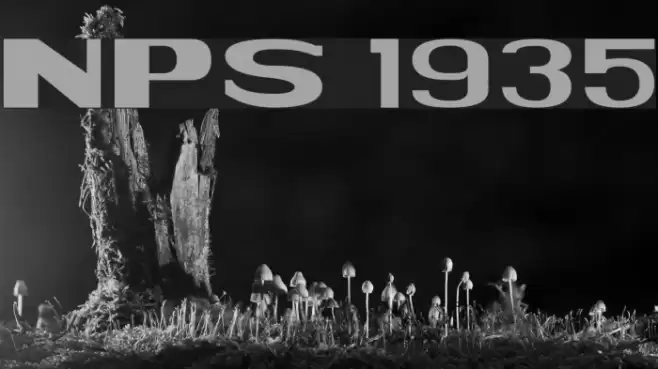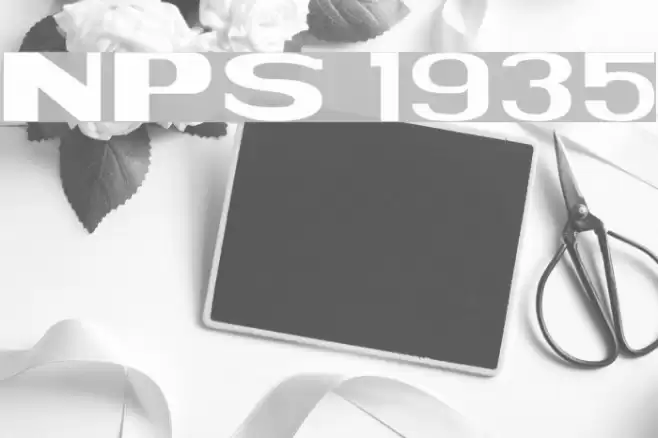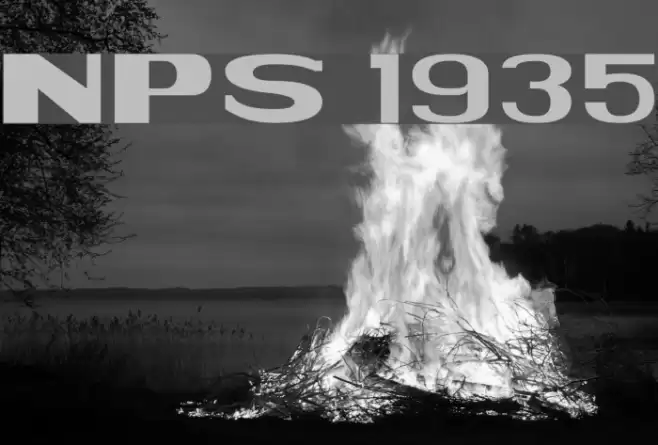
NPS 1935 Font
NPS 1935 Description
This font features a bold and assertive style with strong, thick strokes that convey a sense of power and modernity. The uppercase letters are particularly striking, with a uniform height and width that create a cohesive and balanced appearance. The lowercase letters maintain the boldness of the uppercase, with rounded edges that add a touch of softness to the overall design. The numerals are clear and legible, making them suitable for various applications. Special characters are included, maintaining the font's bold and modern aesthetic. The overall design is clean and impactful, making it ideal for attention-grabbing headlines or branding projects.
A bold, modern font with strong strokes and a cohesive design from Retro fonts.